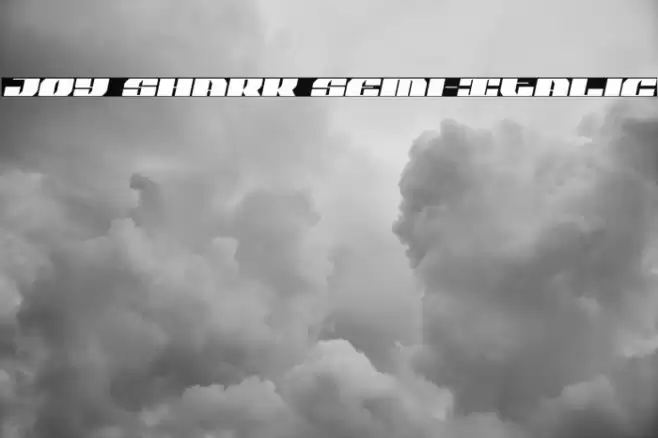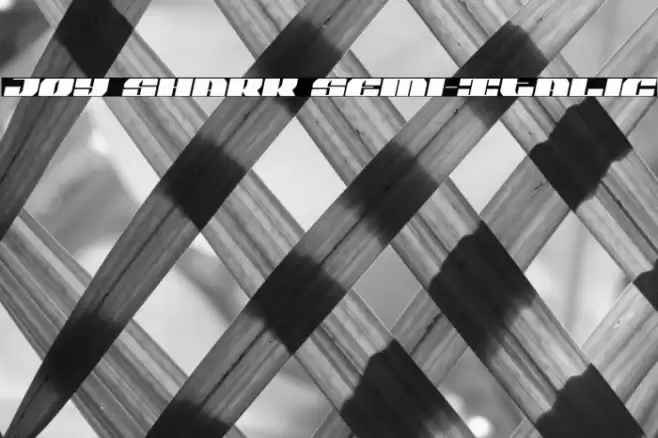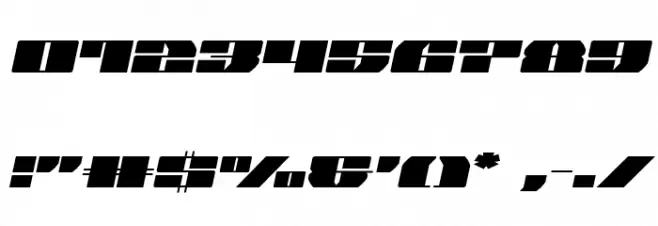
Joy Shark Semi-Italic Font
Joy Shark Semi-Italic Description
This font features a bold and dynamic style with a semi-italic slant, giving it a sense of motion and energy. The characters are wide and blocky, with sharp angles and a geometric structure that conveys strength and modernity. The uppercase and lowercase letters maintain a consistent design, while the numbers and special characters integrate seamlessly with the overall aesthetic. The font's unique appearance makes it stand out, making it ideal for projects that require a strong visual impact.
A bold, semi-italic font with a geometric and dynamic style from Uncategorized fonts.
- Proposed Projects: Ideal for sports branding, action-themed posters, video game titles, and dynamic logo designs.
- Width: Expanded